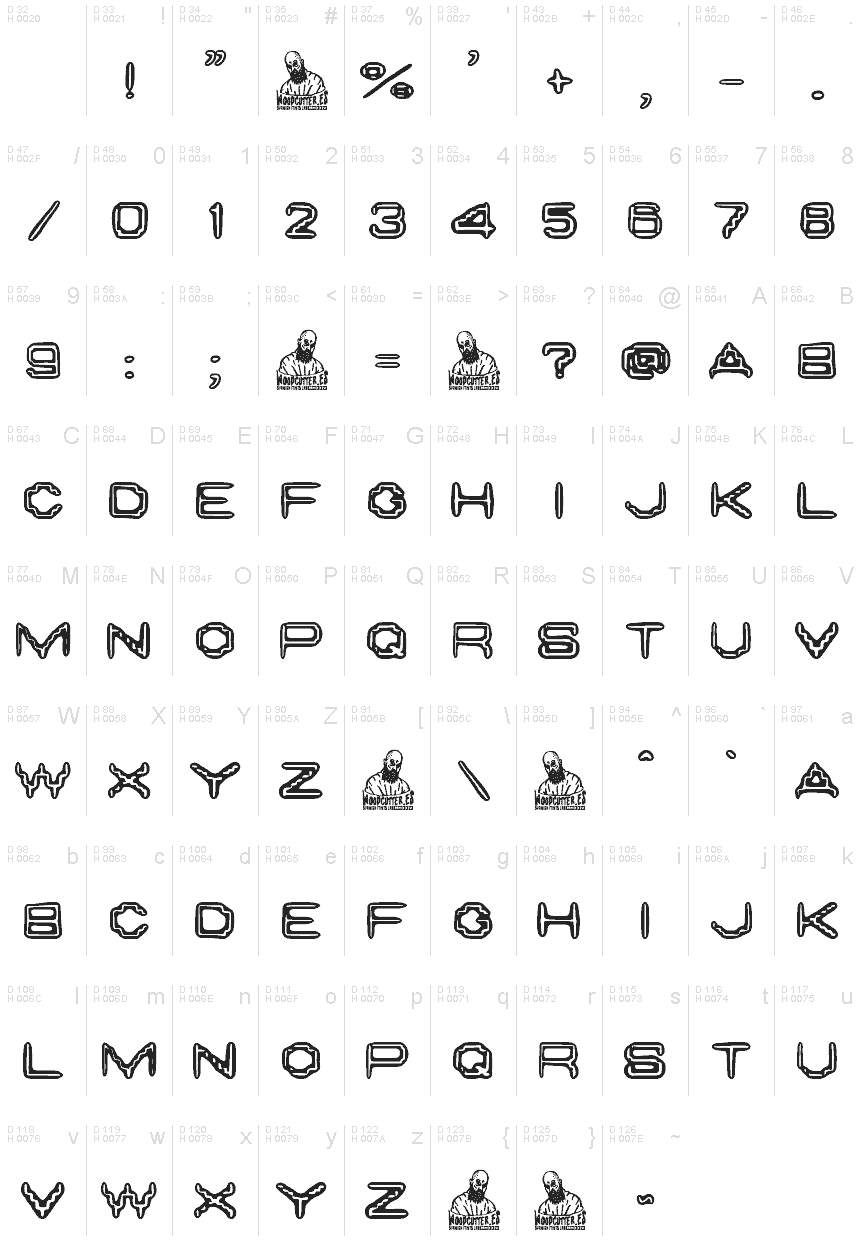
Terrace Digital Hools
Terrace Digital Hools font is a geometric modern display typeface designed by Woodcutter. The linear shapes that construct the expanded letters have a sleek and retro-futuristic appeal with square cuts, smooth curves, and an innovative atmosphere. Originally inspired by block typefaces, this one has an exceptional technological feel for all things digital.